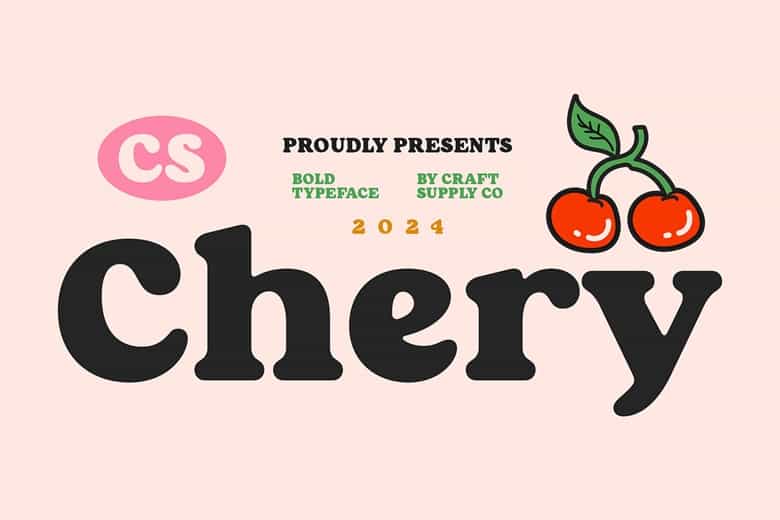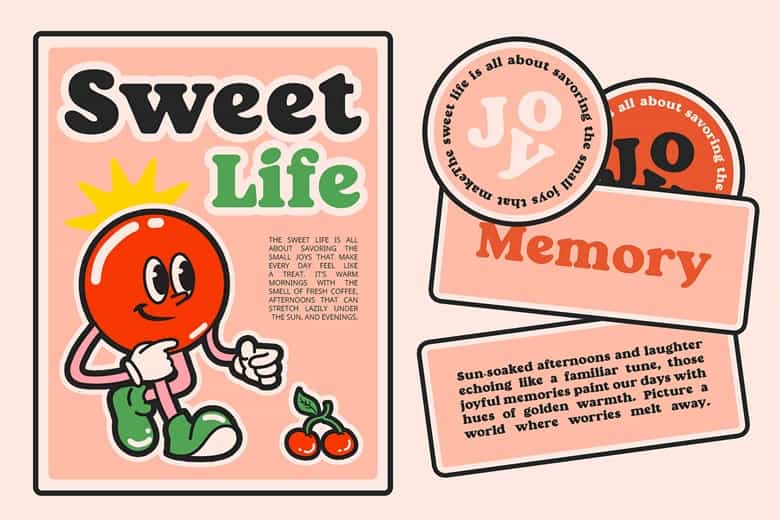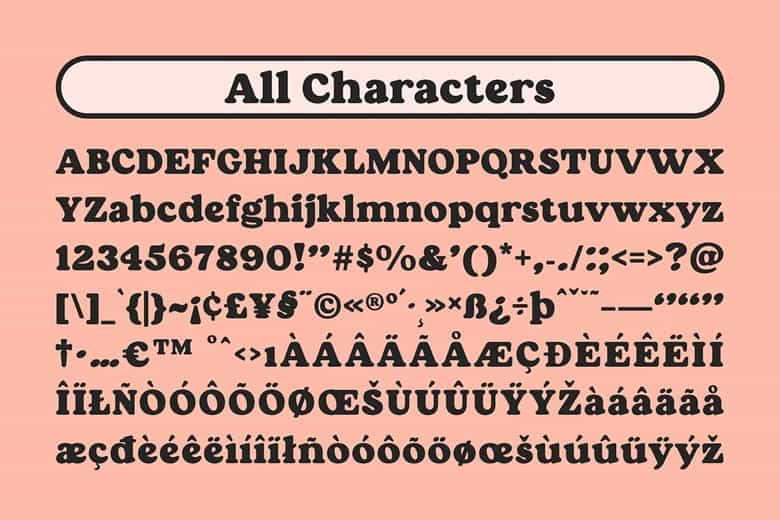
CS Chery is a display serif font with rounded and bold shapes that give an aesthetics of the 90s decade. The corners of all the letters are slightly rounded, which makes the font look more friendly, at the same time, the heavy weight of the font will help it stand out. This combination of more soft and more sharp edges gives the product a unique look that is sure to turn heads.